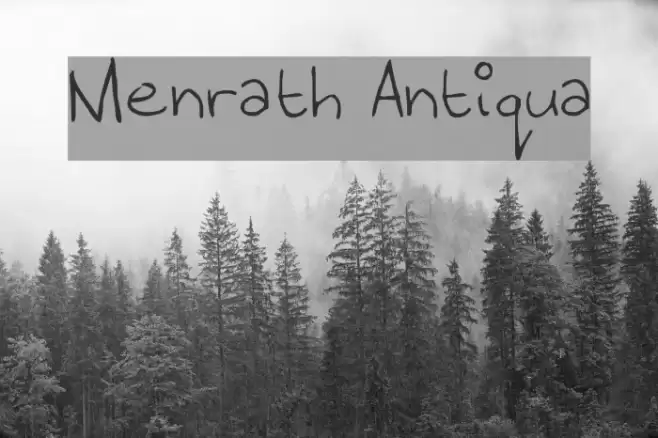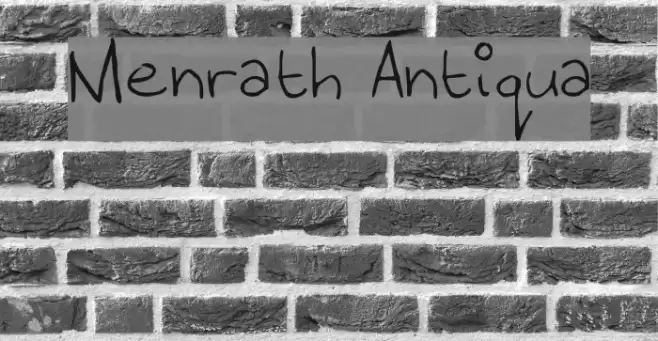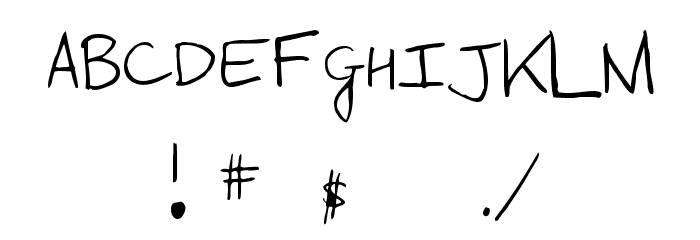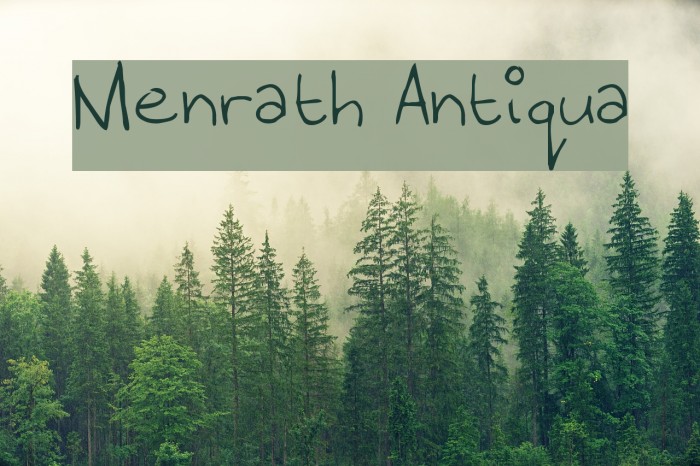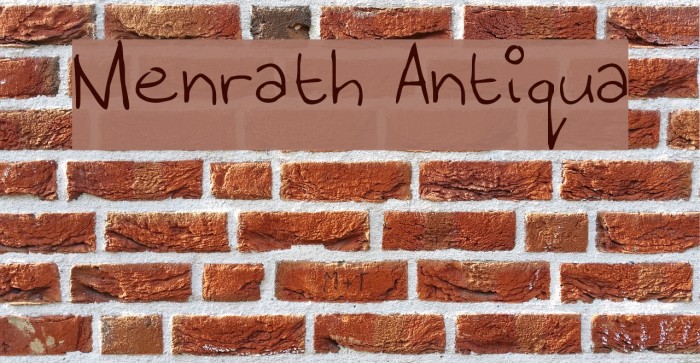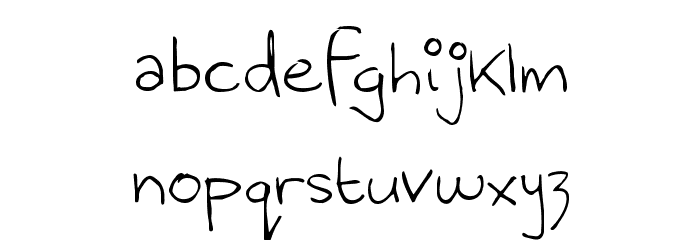
Menrath Antiqua Font
Menrath Antiqua Description
This font features a playful and informal handwritten style, characterized by its irregular and slightly whimsical letterforms. The strokes are uneven, giving it a casual and approachable appearance. The uppercase and lowercase letters maintain a consistent style, with some letters featuring unique loops and curves that add to its charm. The special characters are designed to match the overall aesthetic, ensuring a cohesive look across all text. This font is ideal for projects that require a personal touch or a creative flair, making it suitable for invitations, greeting cards, and artistic designs.
A playful, handwritten font with irregular, whimsical strokes from Uncategorized fonts.
- Proposed Projects: Ideal for invitations, greeting cards, artistic designs, and personal projects.
- Overall Style: Casual, Playful
- Use Case: Headlines, Artistic designs, Personal projects